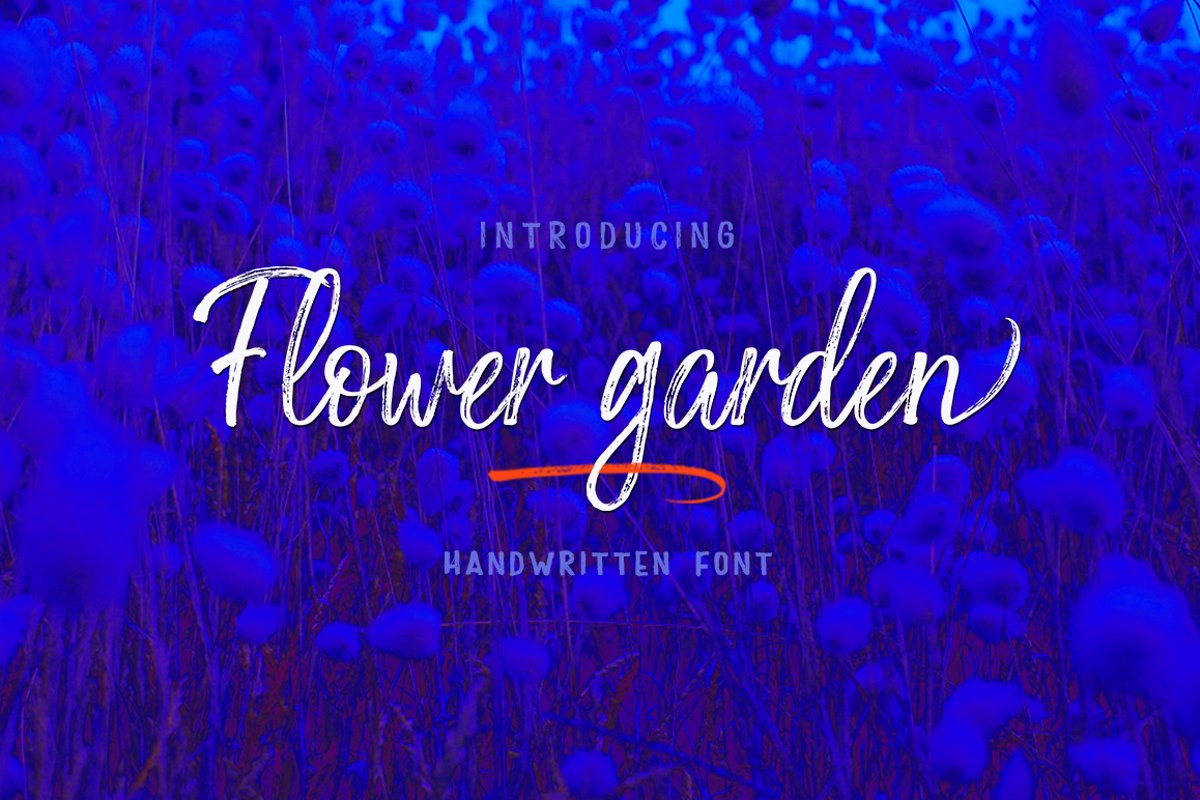
Flower garden Script is a modern brush font, organic, dynamic and energetic sytle.Can used for various purposes. such as the title, signature, logo, correspondence, wedding invitations, letterhead, signage, labels, newsletters, posters, badges, etc. Files included: Flower garden Script (otf, ttf) Flower garden Underlines (otf,ttf) How to access all alternative characters, using Windows Character Map with Photoshop: https://www.youtube.com/watch?v=Go9vacoYmBw How to access all alternative characters using Adobe Illustrator: https://www.youtube.com/watch?v=XzwjMkbB-wQ Flower garden Script is coded with PUA Unicode, which allows full access to all the extra characters without having special designing software. Mac users can use Font Book , and Windows users can use Character Map to view and copy any of the extra characters to paste into your favourite text editor/app. Thanks so much for looking and please let me know if you have any questions.